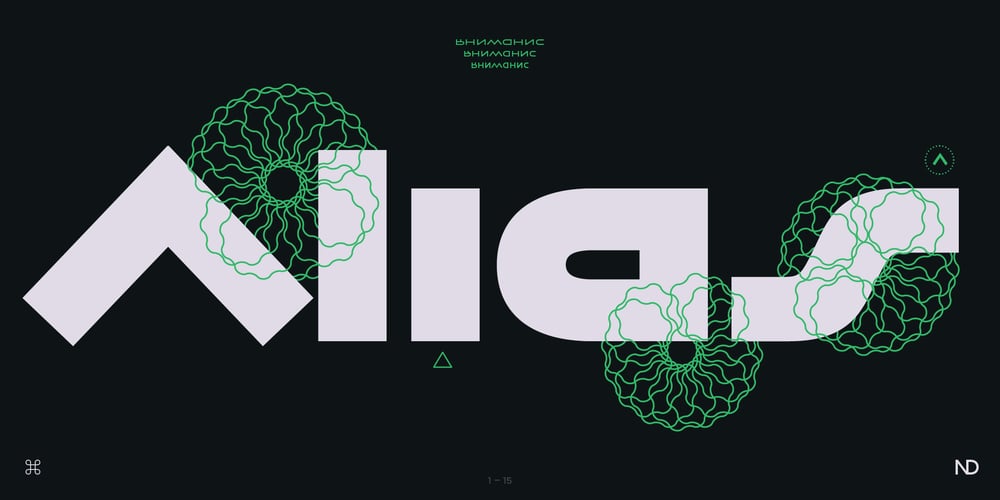
ND Alias
ND Alias font
ND Alias Font Family was designed by Wolf Boese and published by NeueDeutsche. ND Alias contains 24 styles and family package options. ND Alias is a monolinear sans serif coming in 8 weights and 3 widths, so a total of 24 styles. The design is an exploration of abnormal, minimalist, or hyper-reduced glyph shapes, which create a rather interesting degree of ambiguity while retaining legibility at the same time. Alias supports multiple scripts including a full set of Latin, Cyrillic, Greek, and Hebrew glyphs. Its aesthetics are rather serious and hyper futuristic and would be a perfect choice for a blockbuster sci-fi title sequence set over images of a nuclear wasteland or printing out the manifest of a vessel in orbit of a dark planet, the choice is yours. If you are adventurous try the regular style for copy even – you will be surprised. The wide options are great for titles and branding. Mix and match as you please!